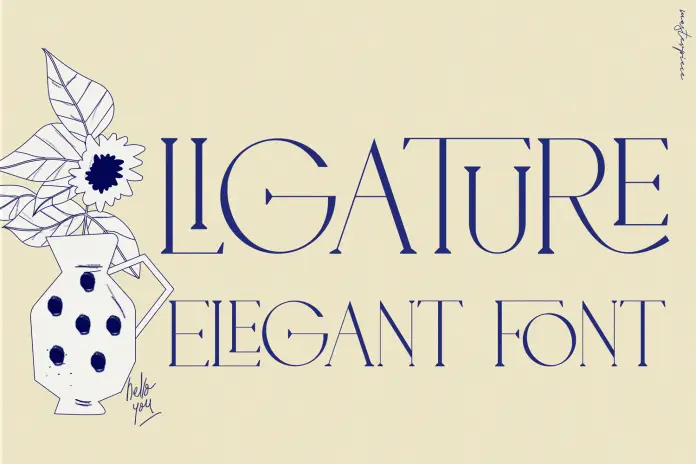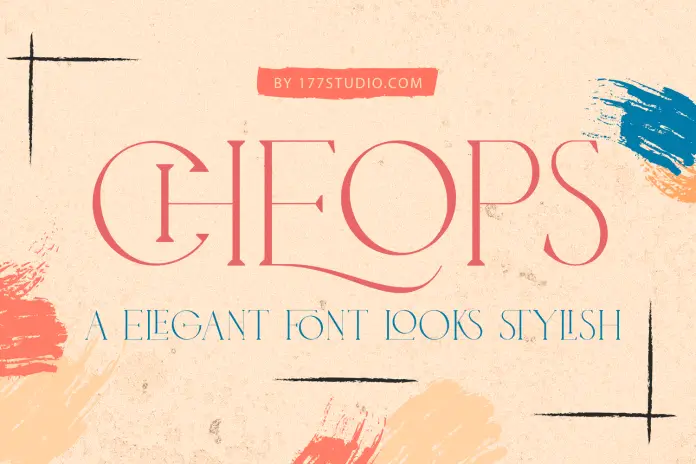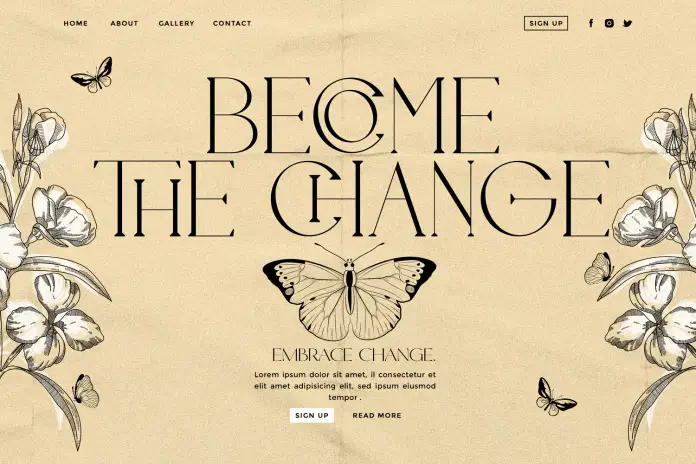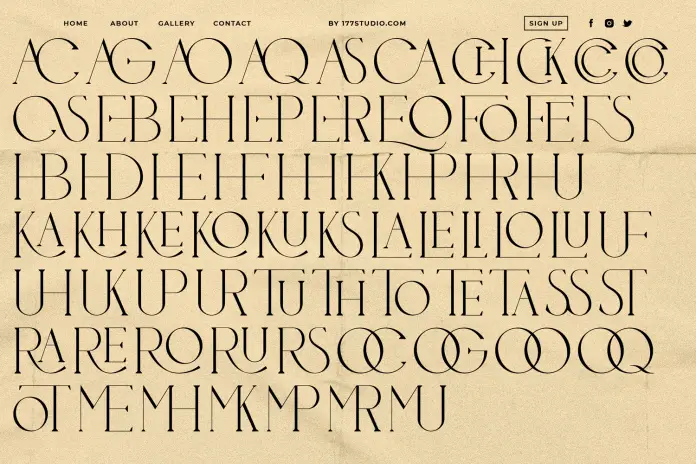
Cheops Elegant Font
Introducing the Cheops Elegant Font, a beautifully crafted typeface that combines sophistication with versatility. This font is perfect for a range of applications, from branding and logos to web design and print materials. With its elegant curves and refined aesthetics, Cheops adds a touch of class to any project.
• Stylish and modern design
• Multiple weights for varied usage
• Ideal for elegant branding projects
• Perfect for invitations and greeting cards
• Great for website headers and titles
• Use in combination with complementary fonts for a cohesive design